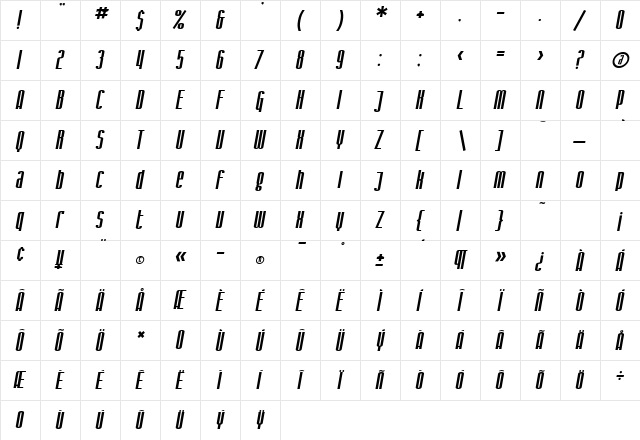
SF Iron Gothic Oblique
Design Context for SF Iron Gothic Typeface
SF Iron Gothic has the quiet confidence of well-executed sans-serif typography: versatile, unobtrusive, and dependable at any size. Its italic angle brings a sense of urgency and motion to the letterforms.
Font Pairing: Works well alongside a characterful serif or display font that can carry the expressive load while SF Iron Gothic handles the functional copy.
Pro Tip: Pair SF Iron Gothic with a display or serif font for headlines — its neutral character makes it an excellent supporting player in complex typographic systems.